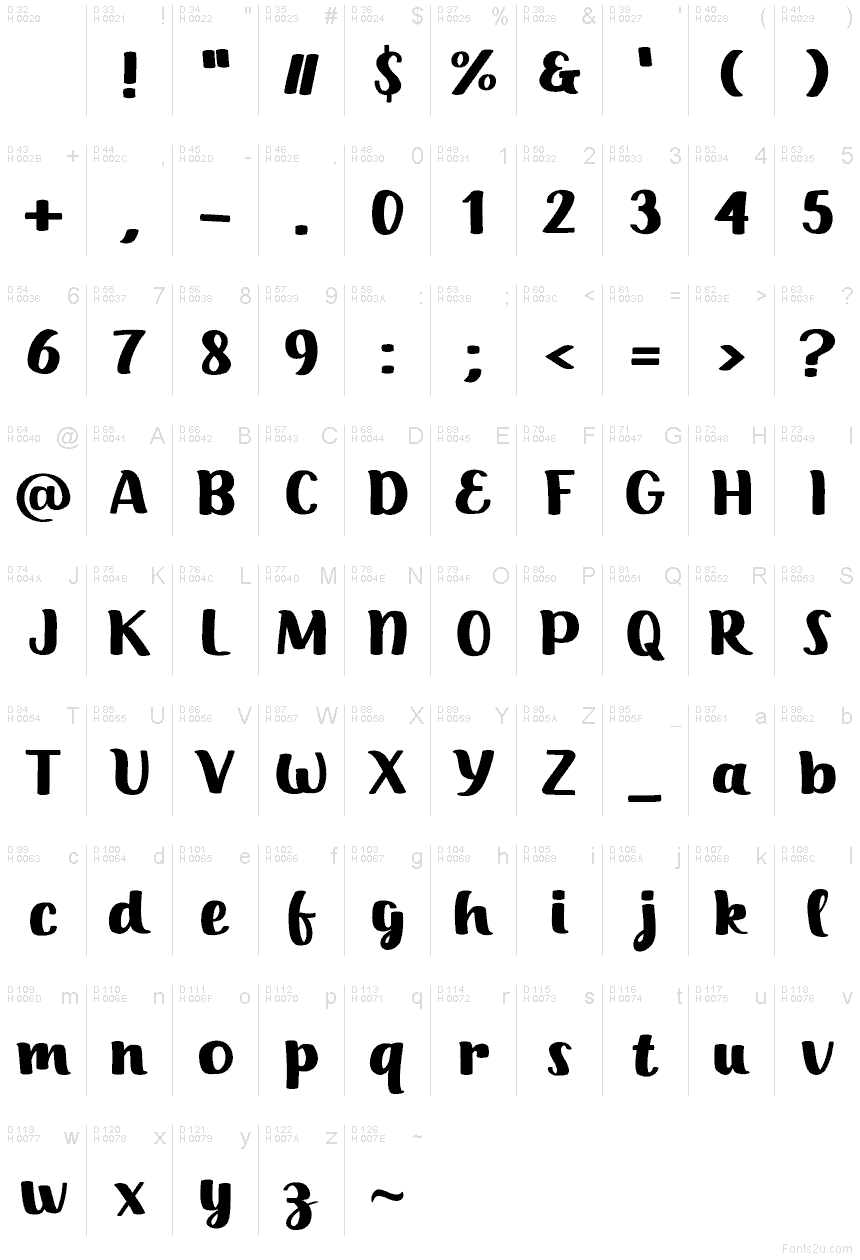
Five Times
Five Times font by Aji Waluyo is a free display font with a comic and bold design. It has irregular, casual shapes with an organic feel and flair that’s hard to miss. The letters are clearly made for fun designs; natural with curves, just like handwriting! The overall look is modern with still a strong focus on having fun.
The font naturally works on comic typography; books or posters, brand names for food or sports, captivating packaging design of all kinds. Let Five Times liven up your logo ideas, seasonal sale announcements, magazine covers, playful newsletter headings it can work as well in video titles or social media graphics!